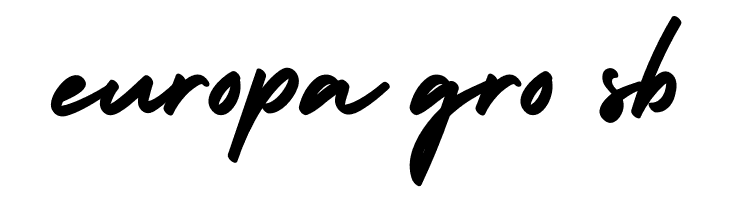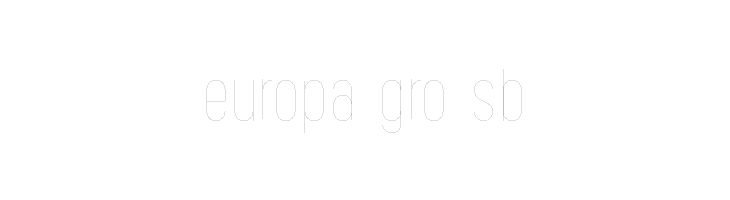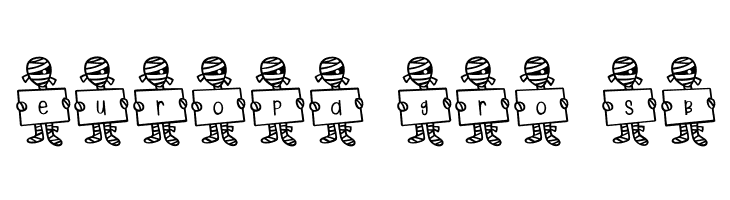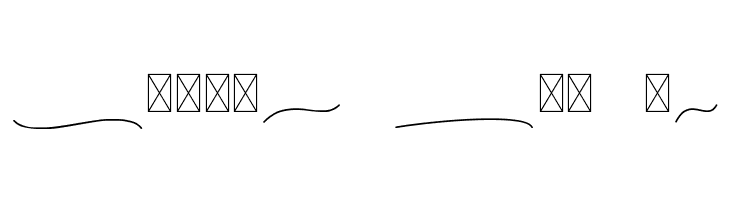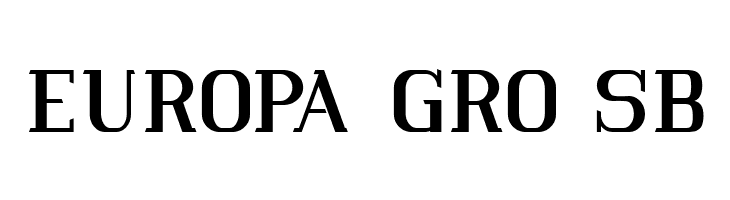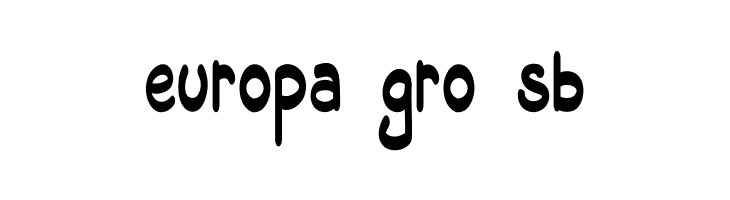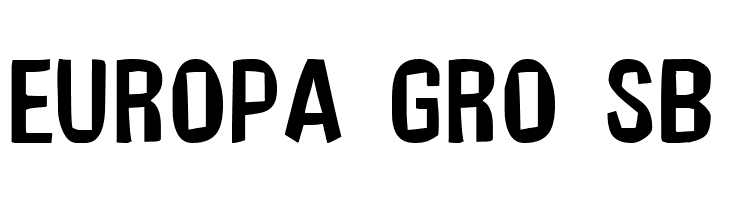
An elegant, decorative script font with celestial motifs.
A dynamic, cursive script font with a lively, handwritten style.
A clean, geometric font with a modern aesthetic.
A whimsical, mummy-themed decorative font perfect for Halloween projects.
The image lacks a complete set of characters to be considered a valid font.
A playful, rounded font with a whimsical and friendly style.
A decorative and modern font with flowing uppercase and structured lowercase letters.
Hand-drawn botanical doodles with a whimsical, organic style.
Bold, modern font with a slightly condensed style and uniform stroke width.